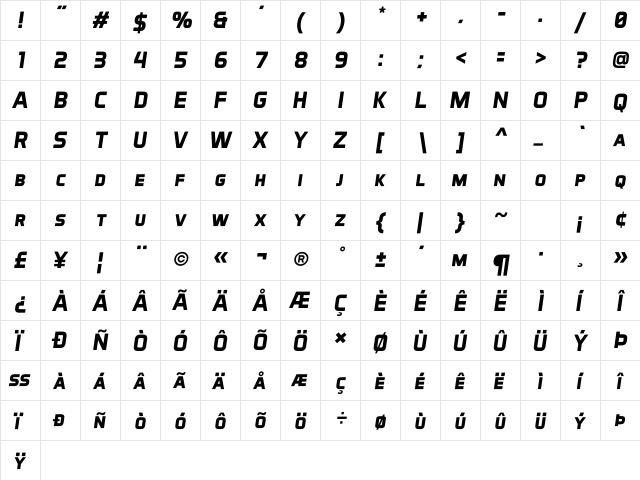
Aero Matics Display Bold Italic Font Preview
| Designer | Jayvee D. Enaguas (GrandChaos) |
Design Context for Aero Matics Display Typeface
Aero Matics Display brings ornamental detail and strong personality to headlines and identities, where visual impact matters more than quiet functionality. Its italic angle brings a sense of urgency and motion to the letterforms. The heavy weight commands attention and anchors typographic hierarchies.
Font Pairing: Pair with a clean neutral sans-serif for body copy to let Aero Matics Display's character lead without overwhelming the composition.
Pro Tip: Use Aero Matics Display exclusively at display sizes — it was designed to be seen, not read at length. Let a neutral companion handle body copy.